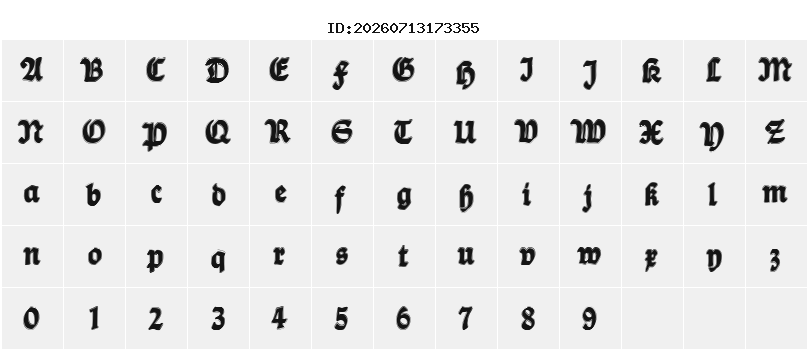
• Font Name: Ballade Contour
• Designer: Dieter Steffmann
• Description: Halbfette Ballade geschaffen von Paul Renner, 1937. Digitized and hinted by Dieter Steffmann, Kreuztal